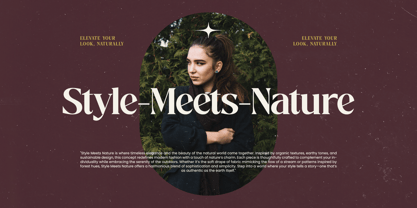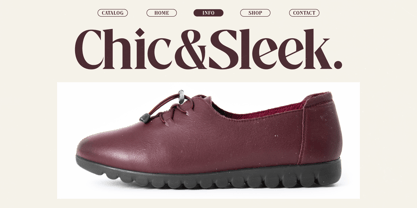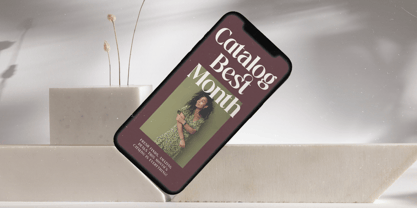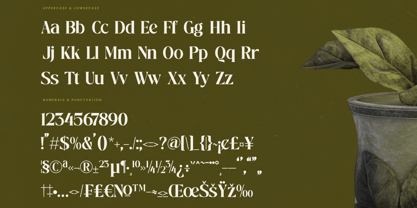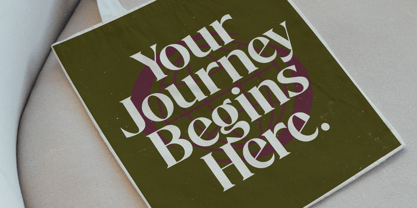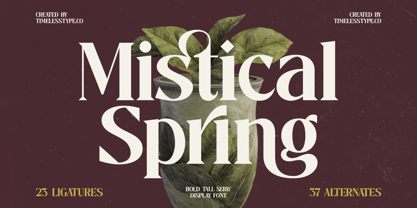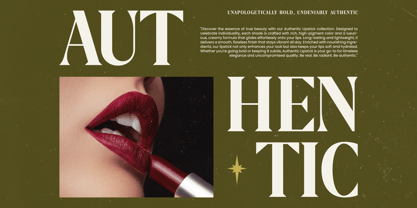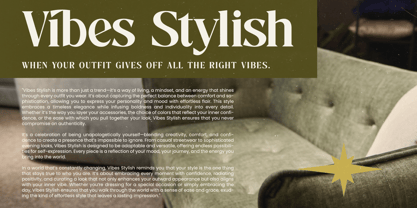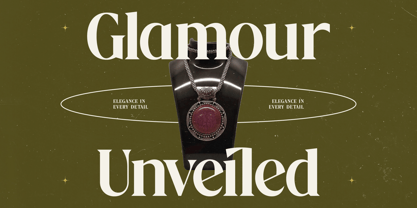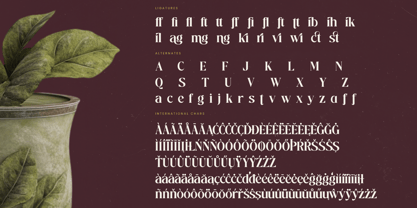
Mistical Spring
by Timelesstype Studio
The Mistical Spring Font Family was designed by Heru Utama Putra and published by Timelesstype Studio. Mistical Spring contains 2 styles and family package options.
Mistical Spring - Bold Tall Serif Display Font , from Timelesstype, Suitable for any projects such as: logos, branding projects, homeware designs, product packaging, mugs, quotes, posters, shopping bags, t-shirts, book covers, name card, invitation cards, greeting cards, label, photography, watermark, special events, and all your other luxury and beautiful projects that need a Luxury Serif taste.